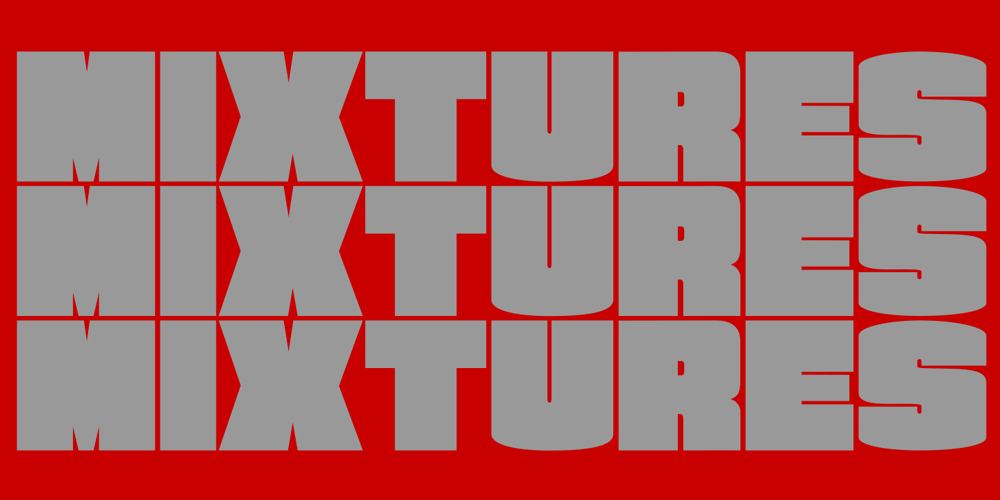
Mixtures Font Family was designed by Arief Rochman and published by 4RM Font. Mixtures contains 3 styles and family package options. Made with 3 width sizes taking into account the width between each letter, and the harmony between each letter. Mixtures fonts impress with the density on each side. suitable for use in the use of display fonts, and designs such as posters, billboards, covers and others.